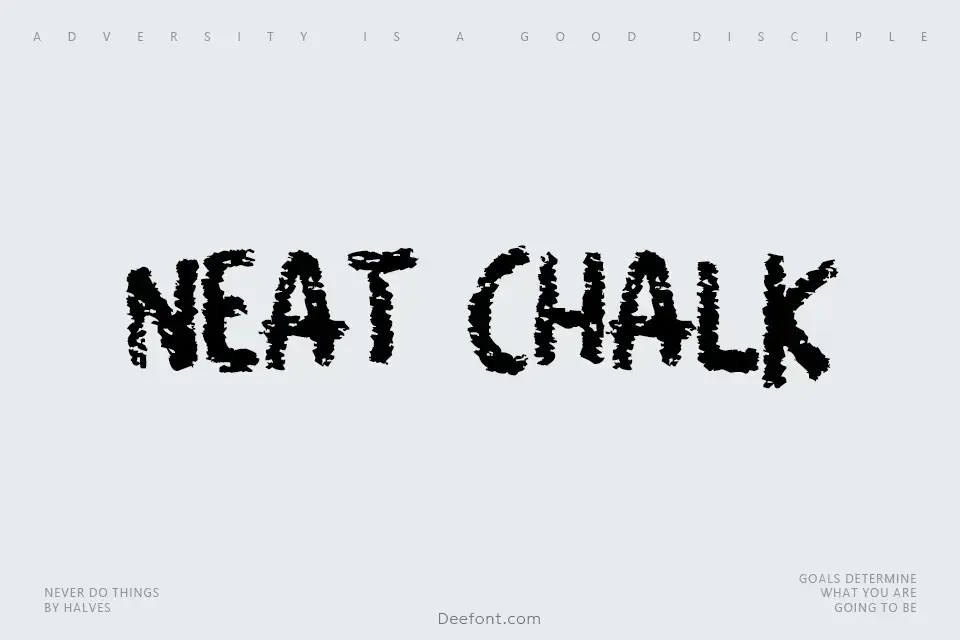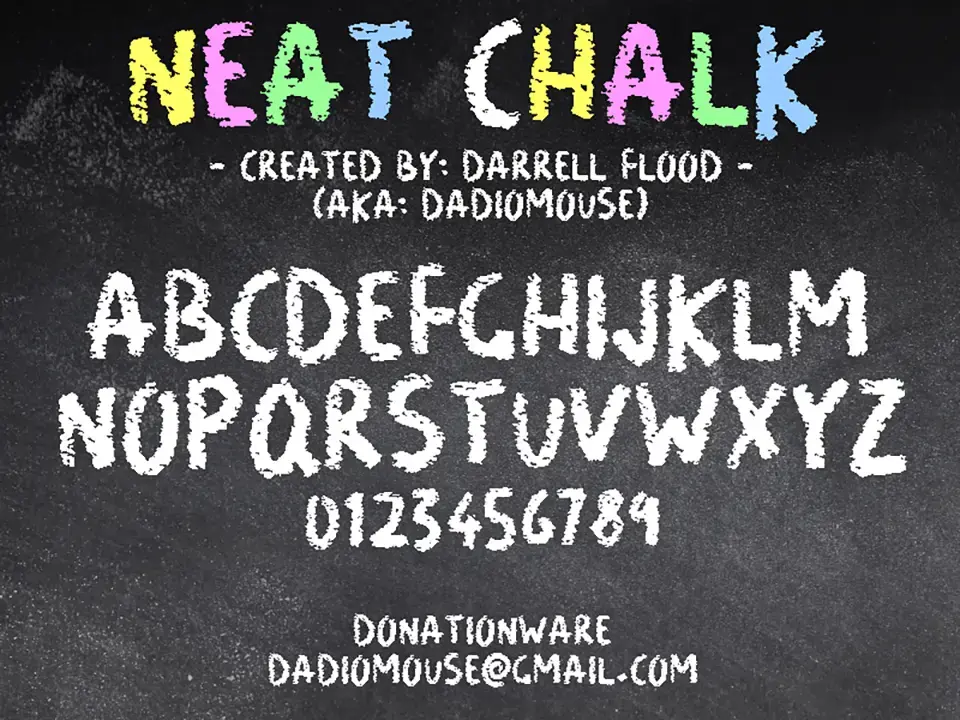
Neat Chalk Font
Neat Chalk is a distinctive handwritten script font that captures the organic charm and raw authenticity of chalk writing. With irregular, gritty strokes and hand-drawn character, this font evokes genuine chalkboard aesthetics ideal for posters, event invitations, branding projects, rustic logos, cafe menus, holiday designs, and social media graphics. Its playful yet expressive nature makes it versatile for both casual and creative applications, from product packaging to banner designs, delivering unpolished elegance with artisanal appeal.